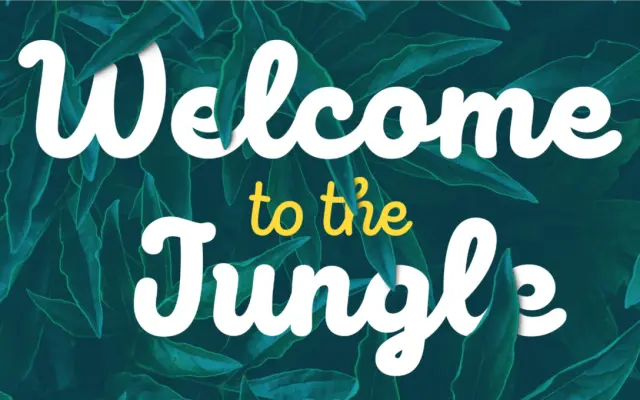
Intro Script
Fontfabric · Ventsislav Dzhokov, Plamen Motev · 2019
A warm, layerable script family with eight weights and a set of decorative goodies — words, banners and patterns — spun off from the Intro Rust type system.
Developed by Ventsislav Dzhokov and Plamen Motev at Fontfabric, the family extends the grunge-inflected Intro Rust sans into flowing script territory across eight weights from Thin to Black. Three additional Goodies styles — pre-built words, banners and patterns — give designers quick decorative assets for packaging, posters and social media. OpenType features include contextual alternates, ligatures and positional variations, with coverage across Extended Latin and Cyrillic.
A flowing, multi-weight script with layered decorative components derived from the Intro Rust sans family, designed for display and branding use rather than body text.